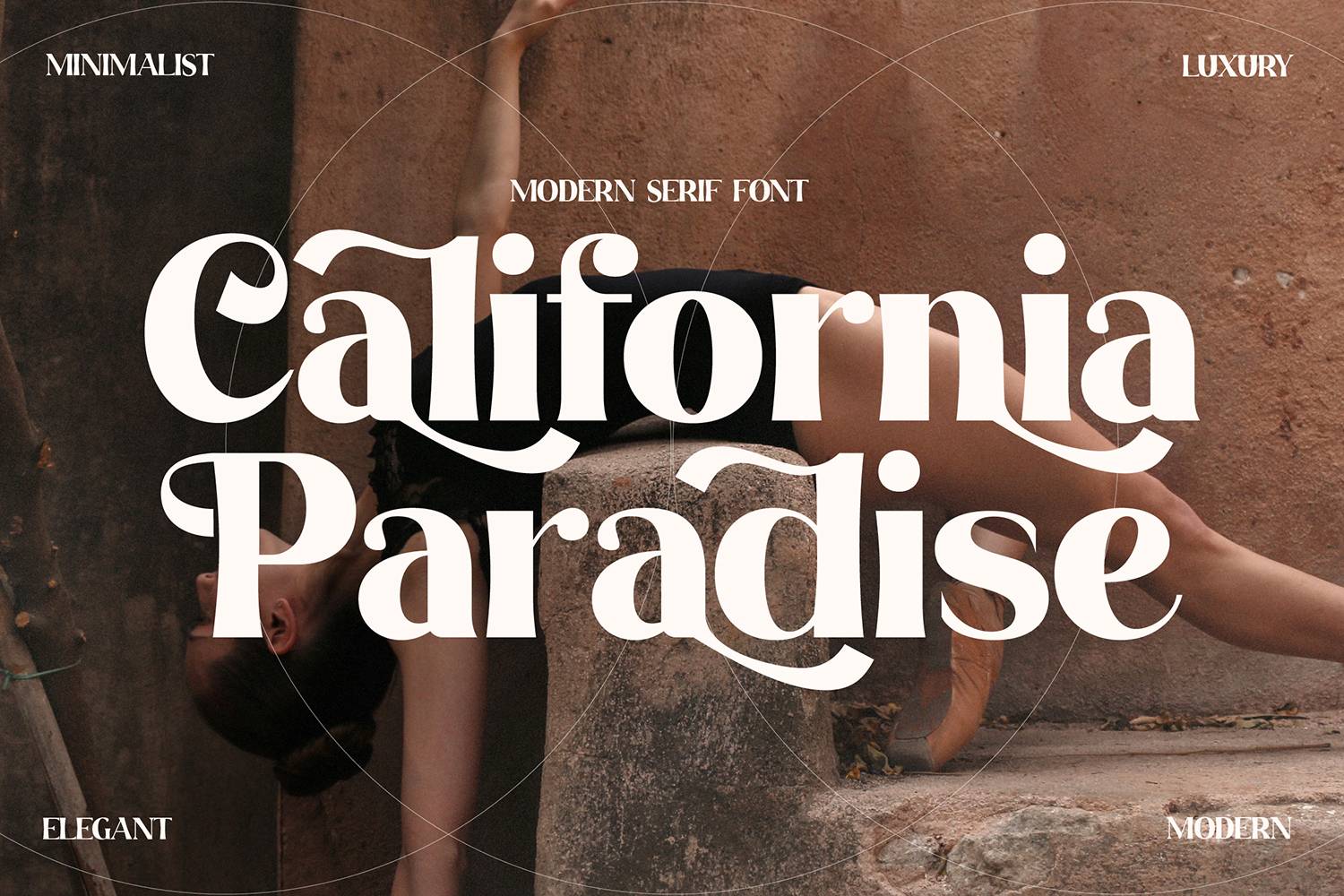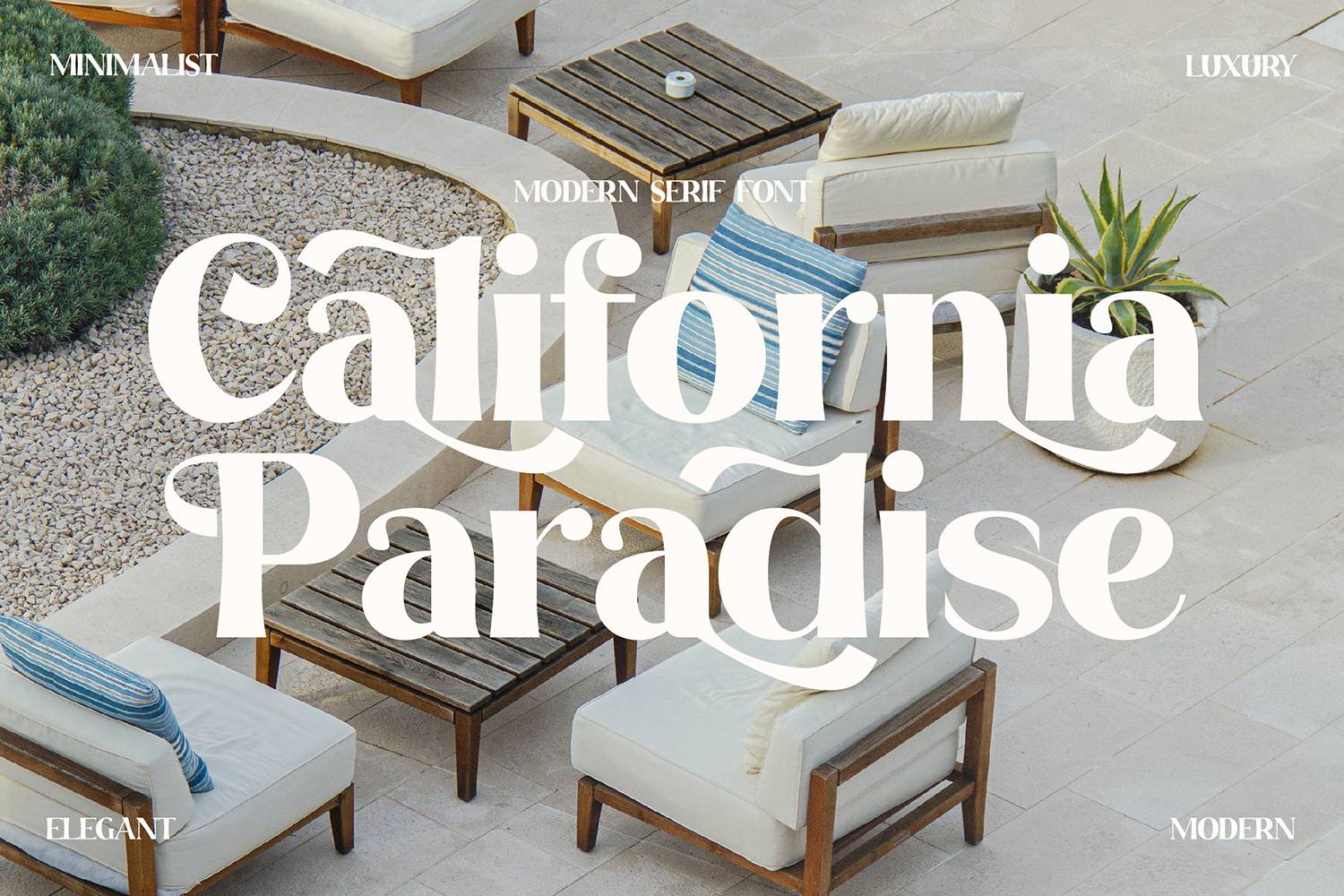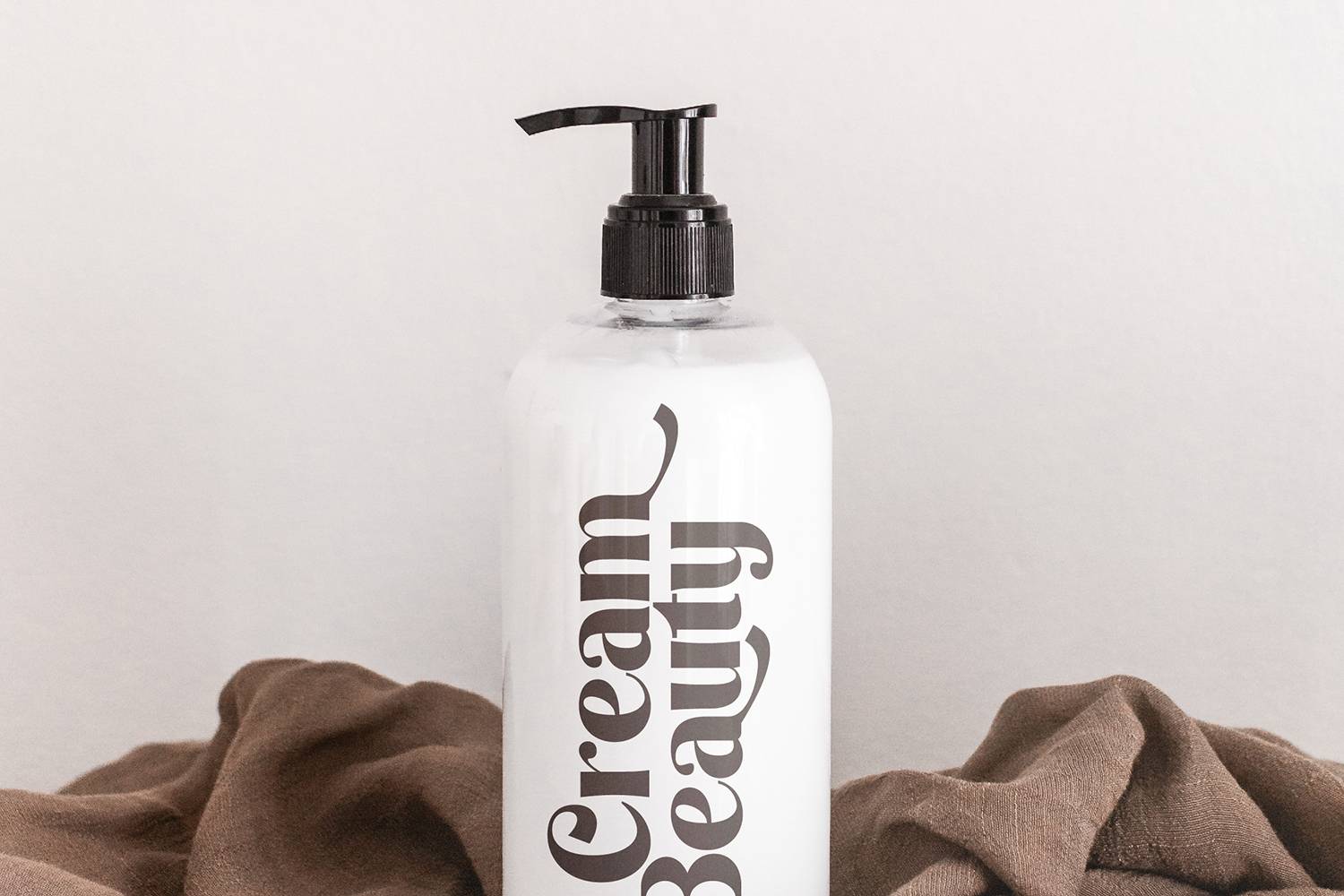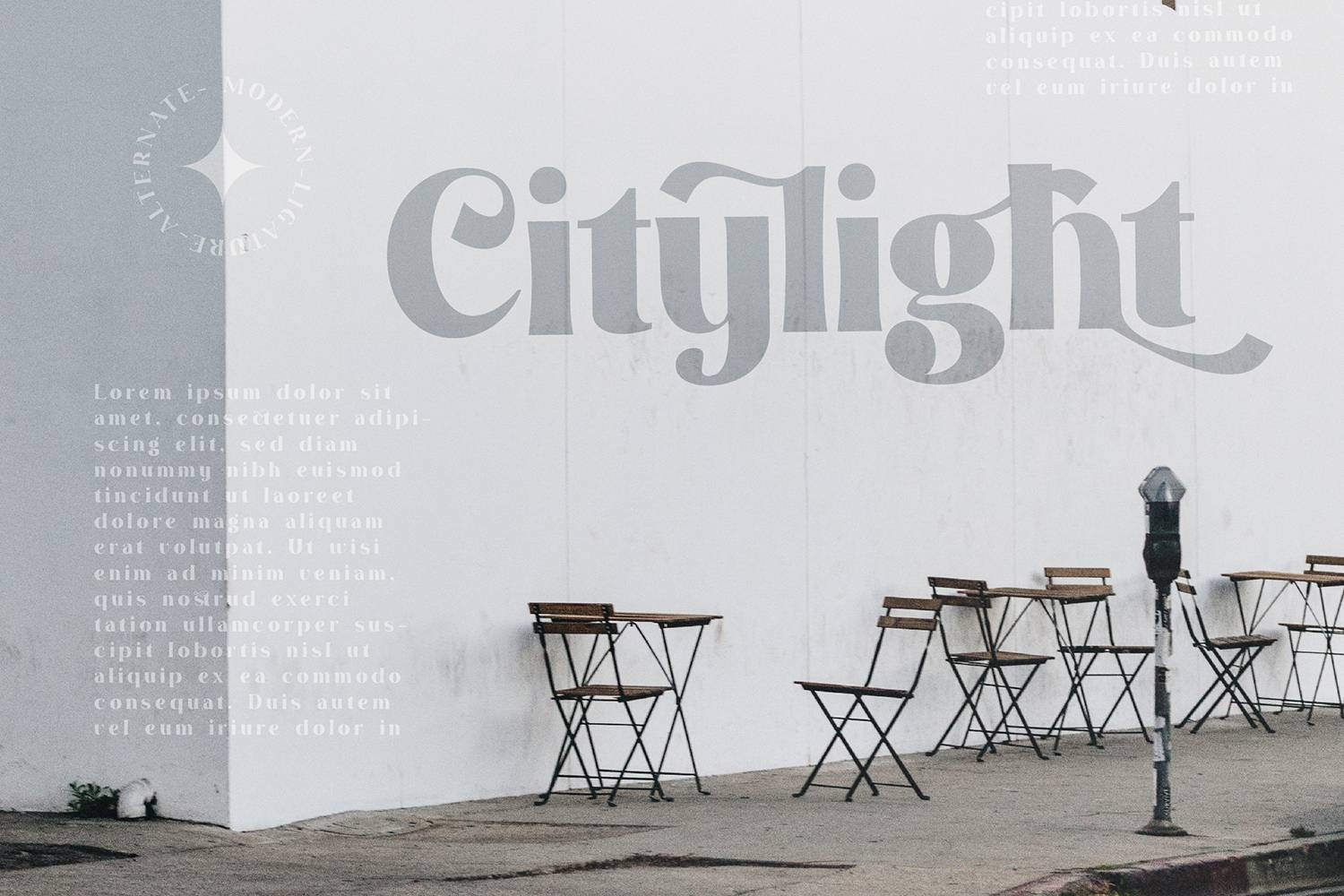
California Paradise is a bold serif font with a high contrast between thick and thin strokes, showcasing sharp, bracketed serifs and a strong vertical stress that lends it a classic yet modern feel. Its elegant letterforms, including distinctive double-story a and g, along with sturdy numbers and punctuation, give it a refined personality suitable for fashion, luxury branding, and editorial headlines. This font works well in designs that need a touch of sophistication and impact, making it perfect for logos, magazines, and upscale packaging.
California Paradise Font